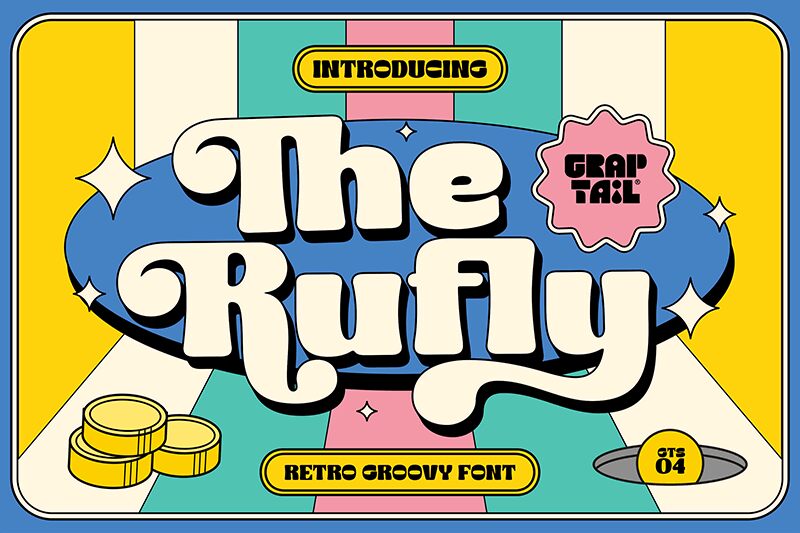
The Rufly - Demo Font Regular
The Rufly font by Graptail Type Studio is a groovy display font that banks on playful shapes, exaggerated curves, and uniform thickness to stand out. Its retro vibe is surely unmissable and an added value for projects that need the effect. With bold yet still friendly features, this typeface mixes well with illustration designs.
This free sans-serif font is suitable for creating movie posters, Youtube thumbnails, or album covers. Use it to design packaging labels, outdoor signages, brochure layouts, birthday cards, or social media posts. It’s advisable not to overuse The Rufly in one project but combine it with simpler complementary fonts instead.